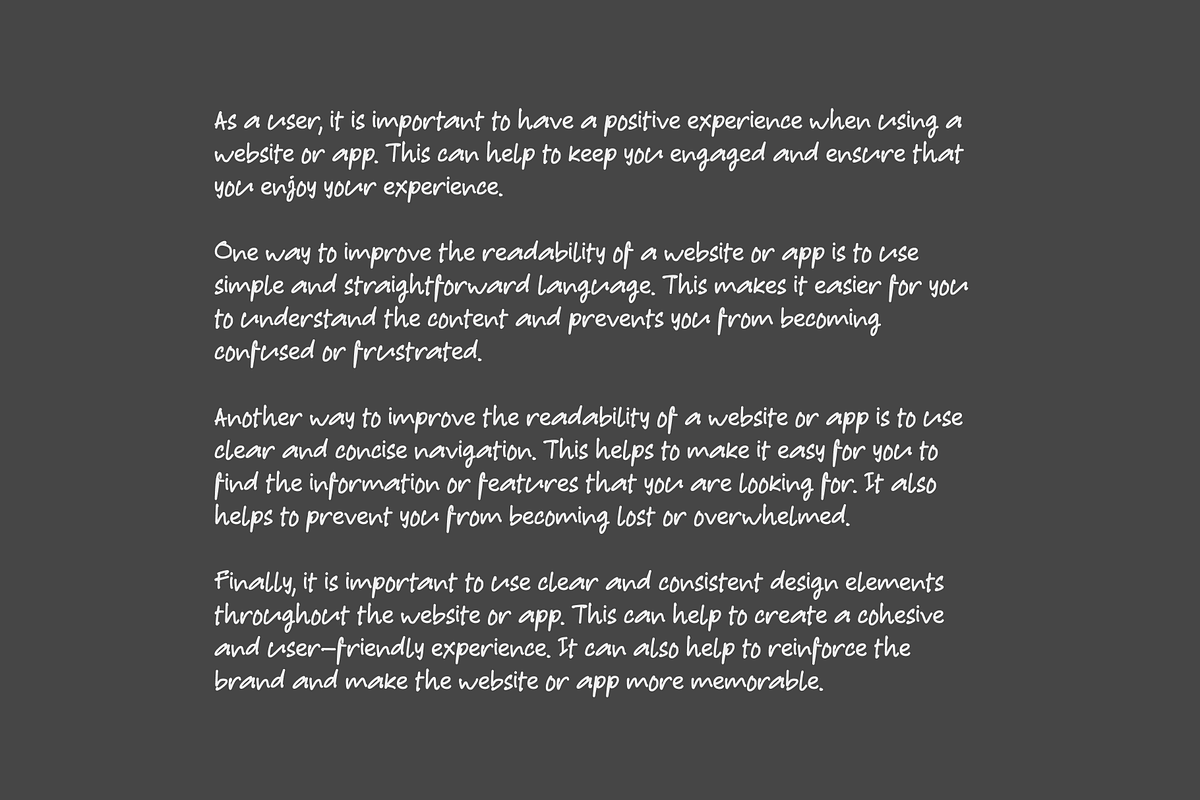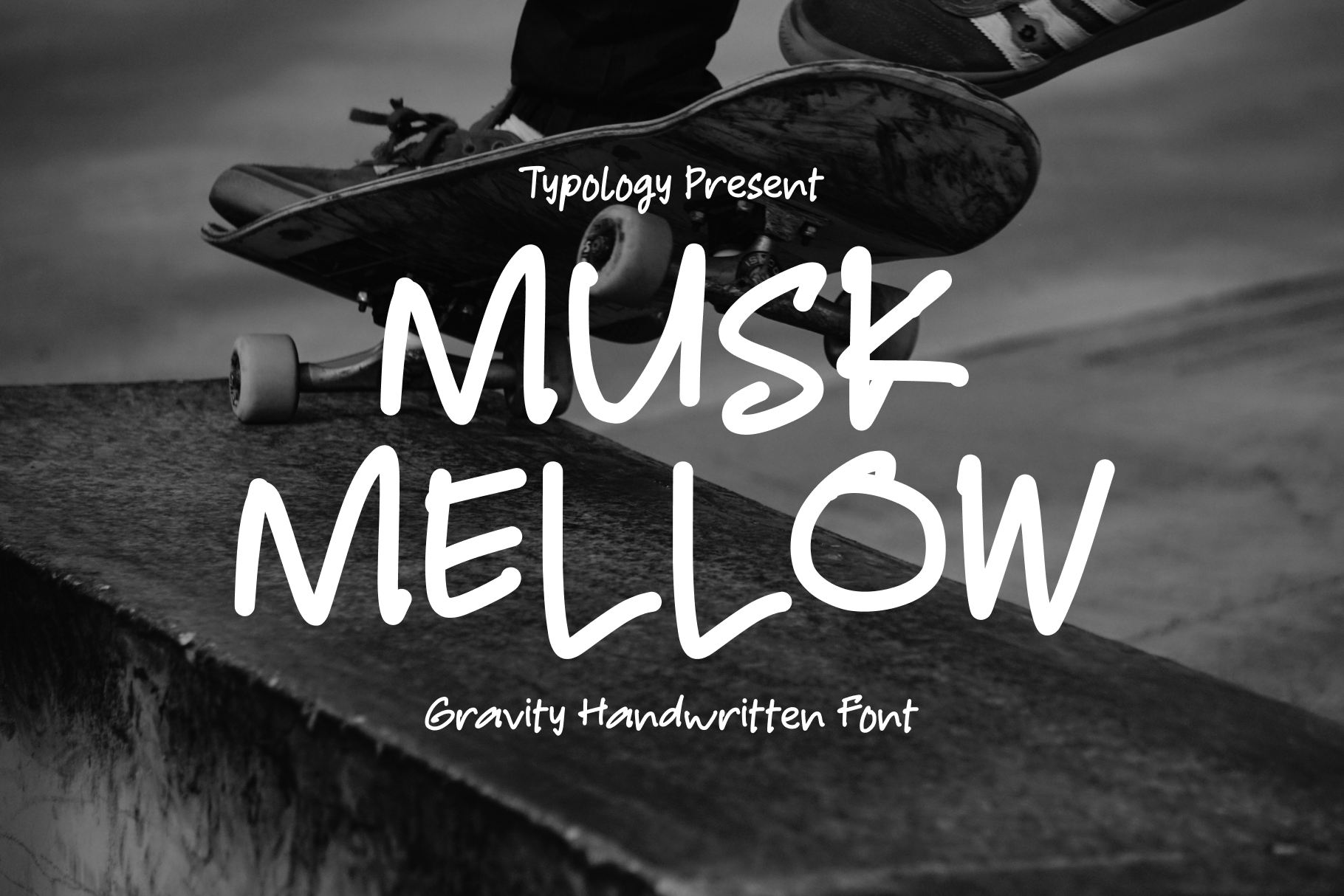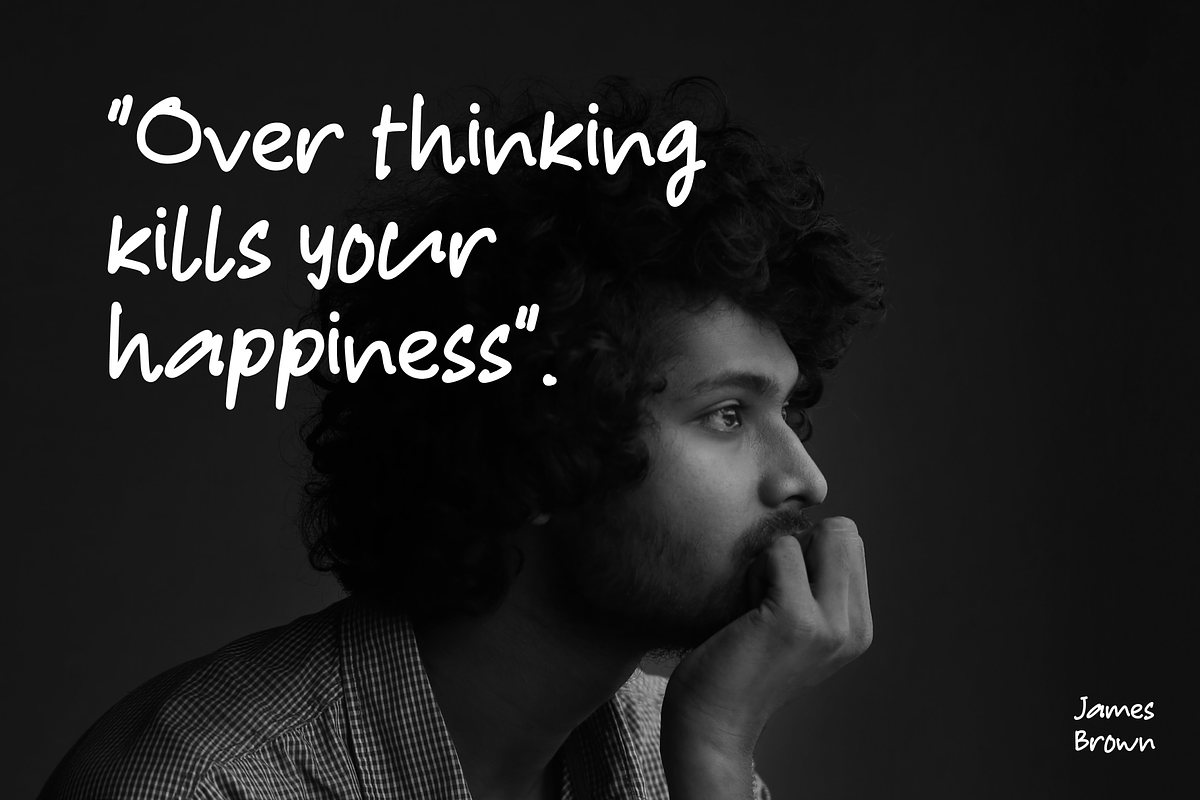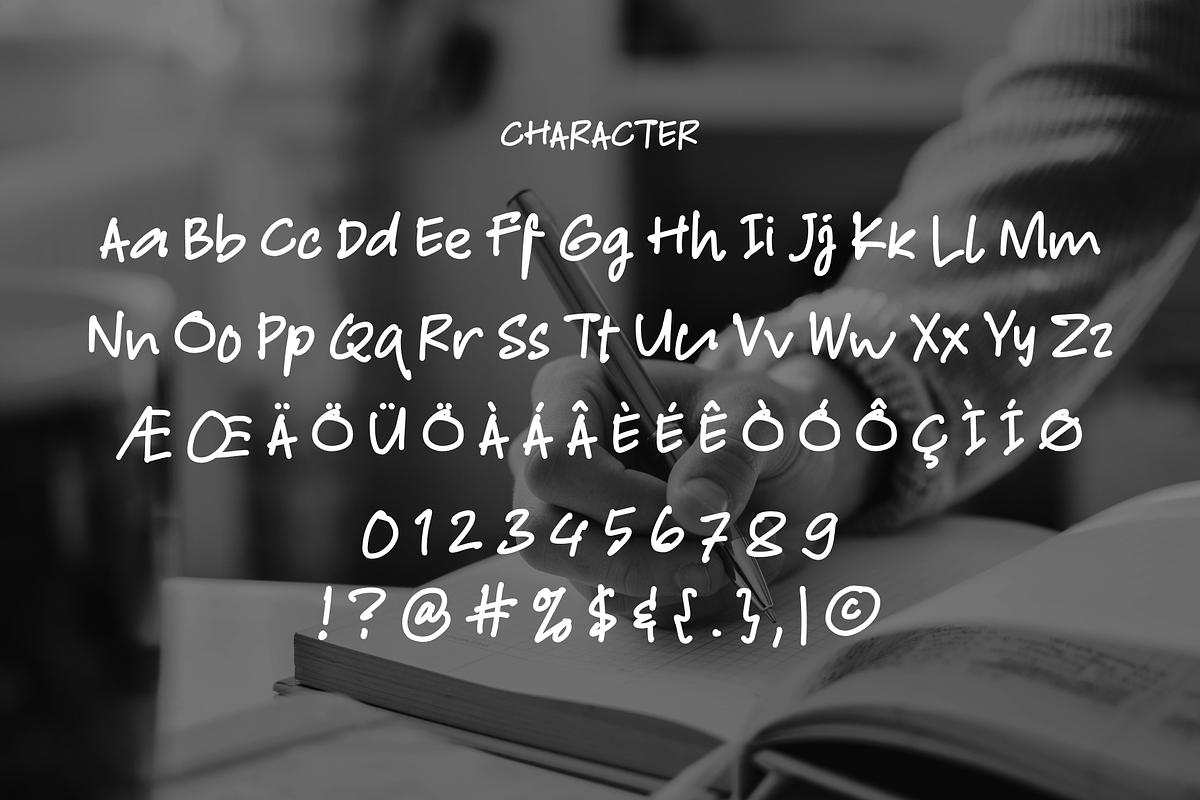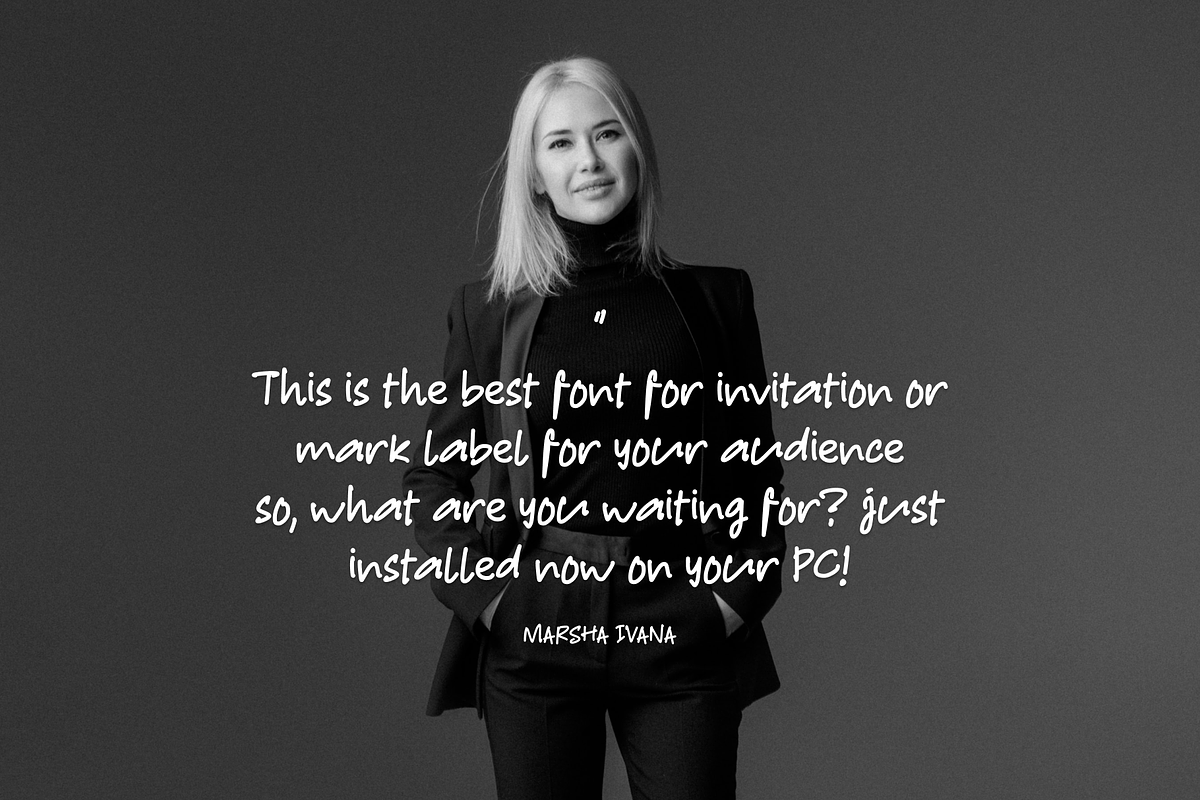
Musk Mellow - Handwritten Font
Introducing Muskmellow - a whimsical and stylish handwritten font that's full of character.
Inject a playful yet sophisticated touch into your designs with Muskmellow, a charming handwritten font. Its elegant strokes and fun curves make it perfect for a range of design projects, from branding to social media graphics. Download Muskmellow now and bring a touch of whimsy to your work!